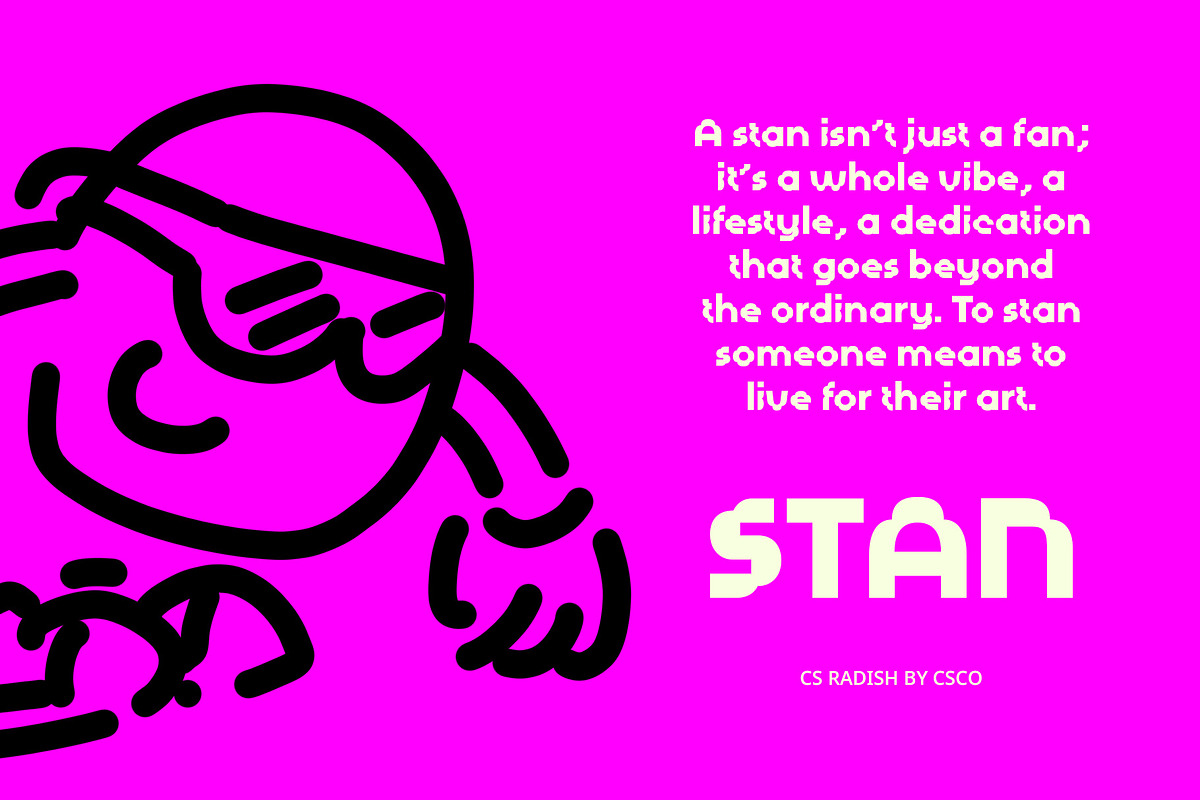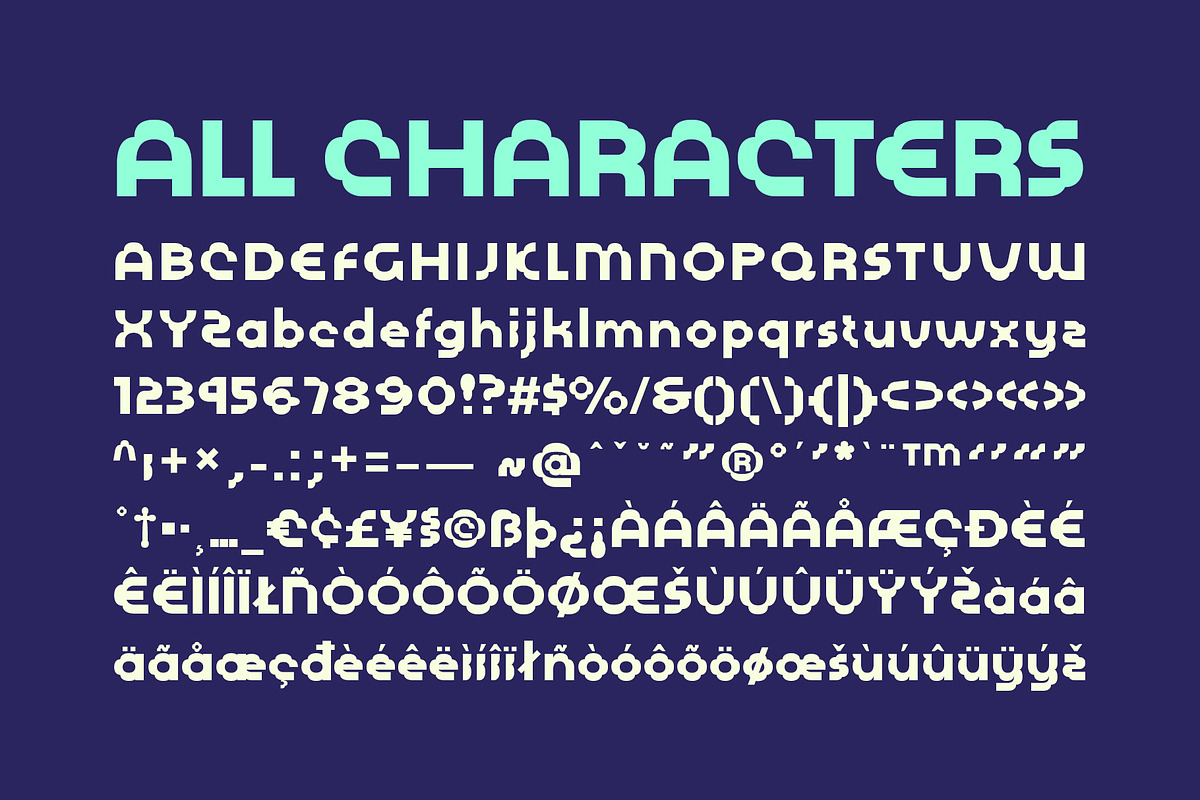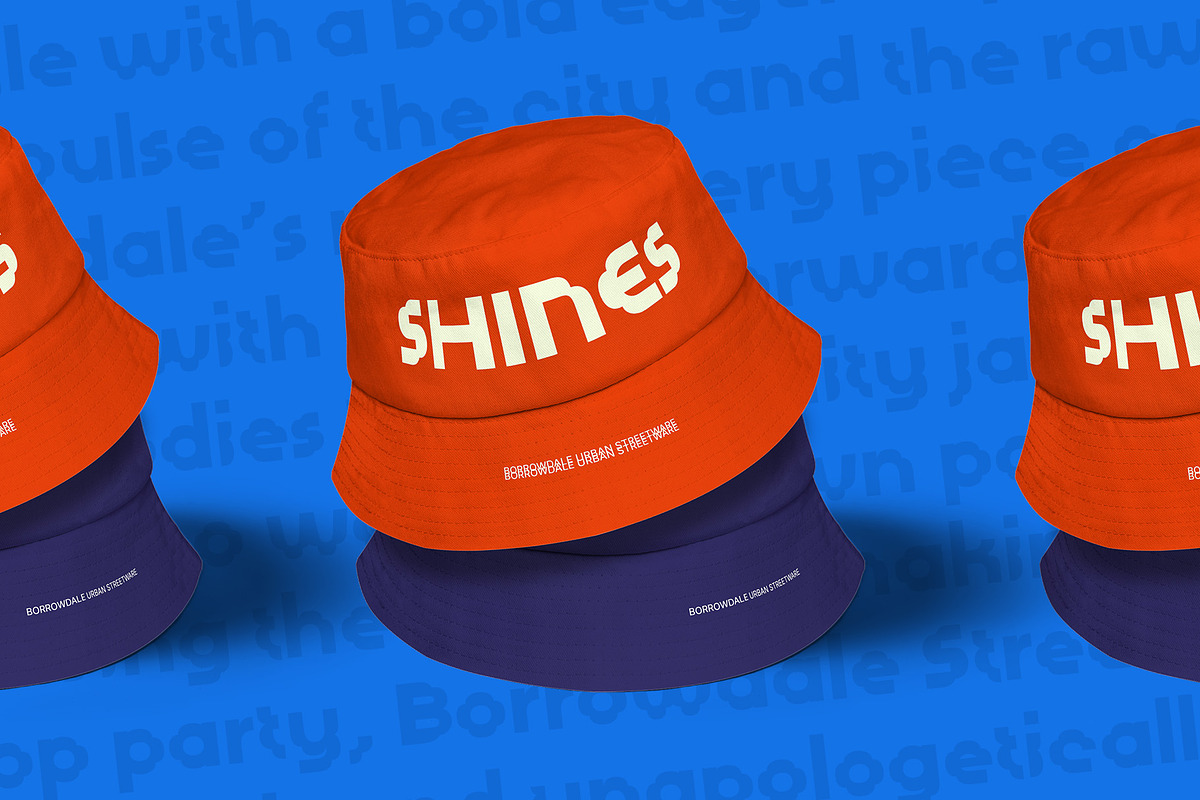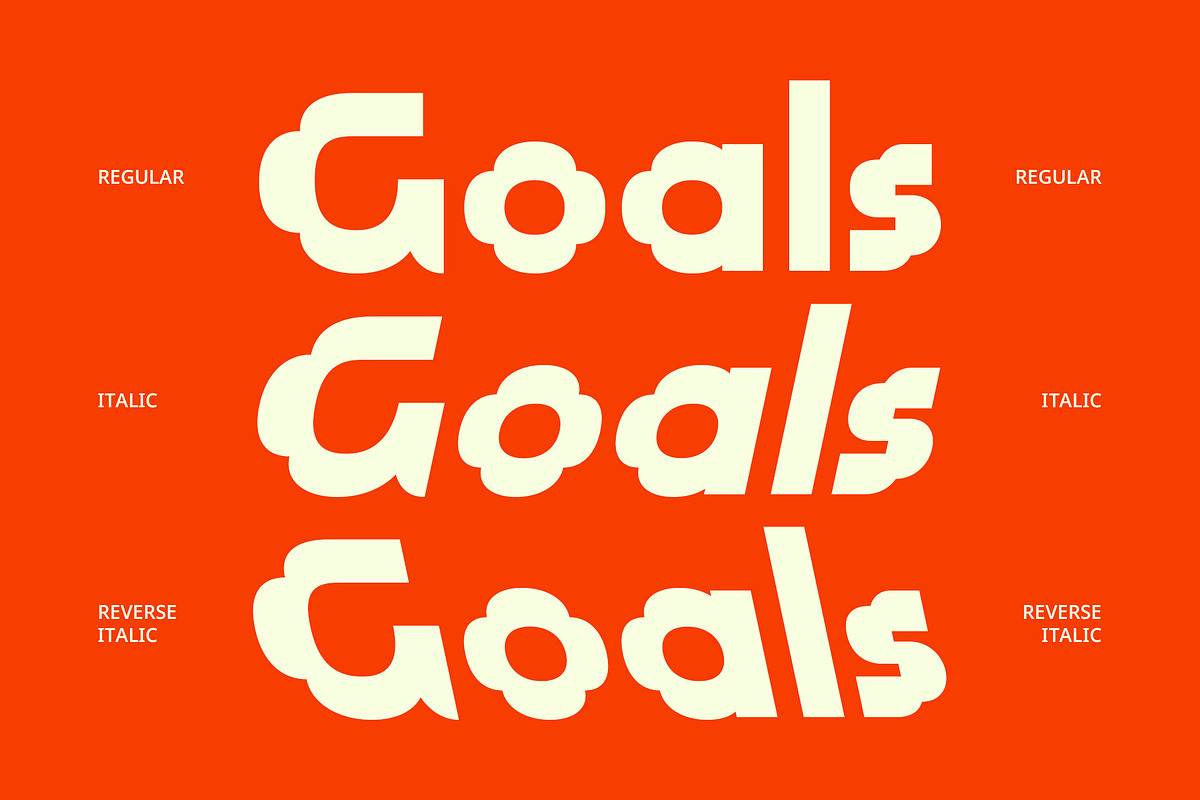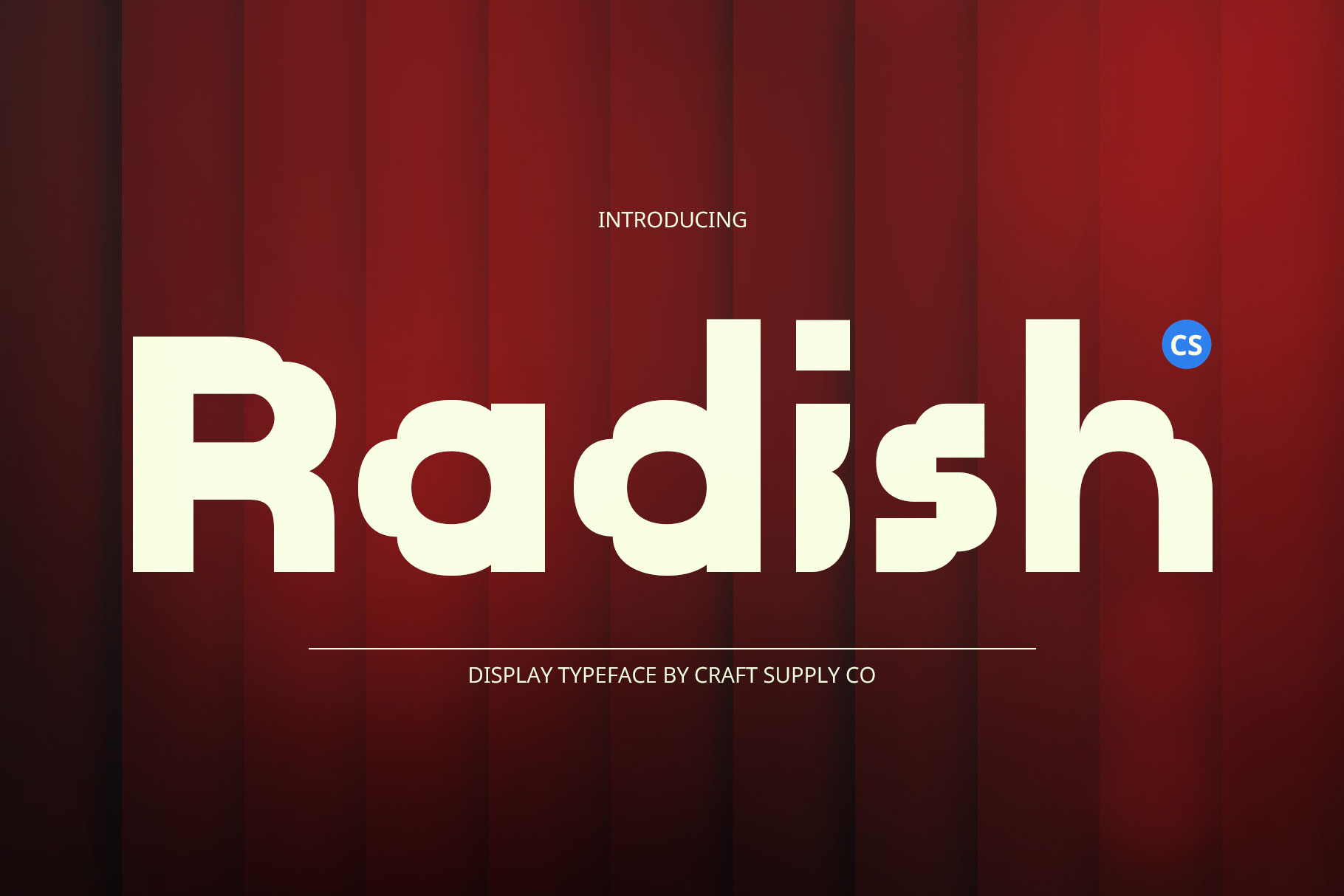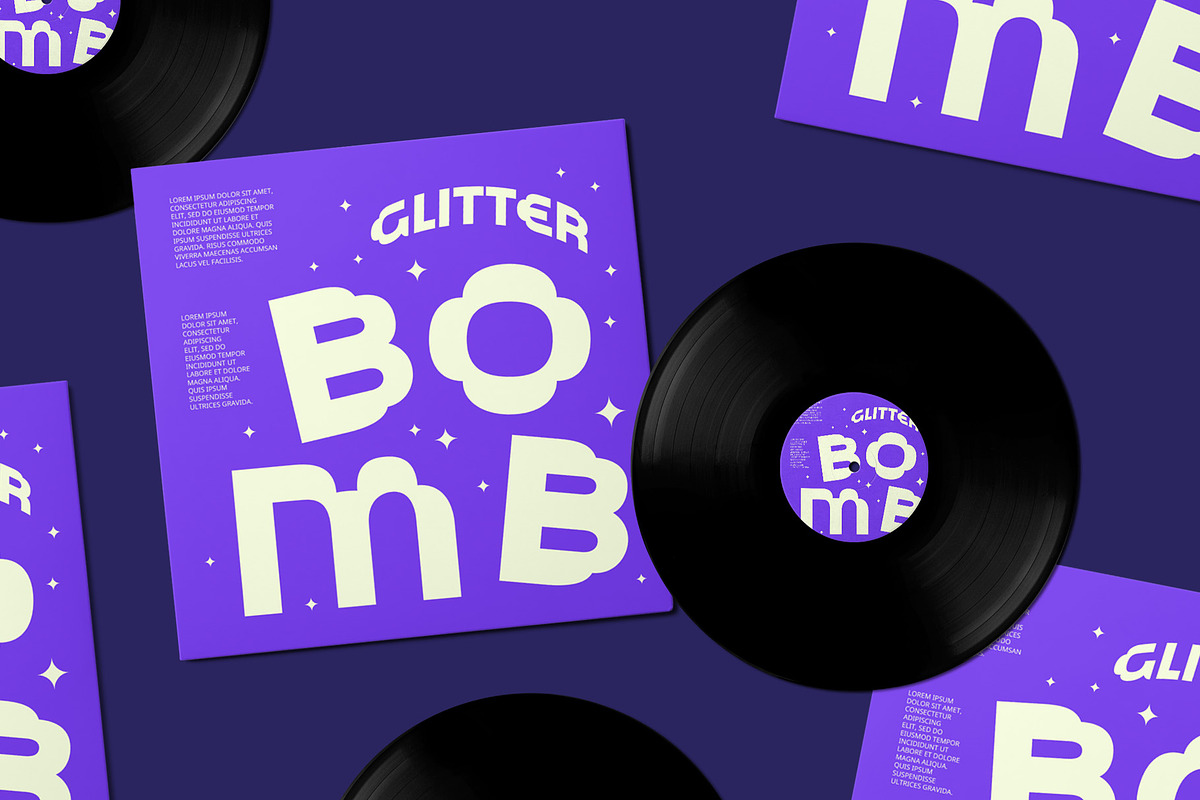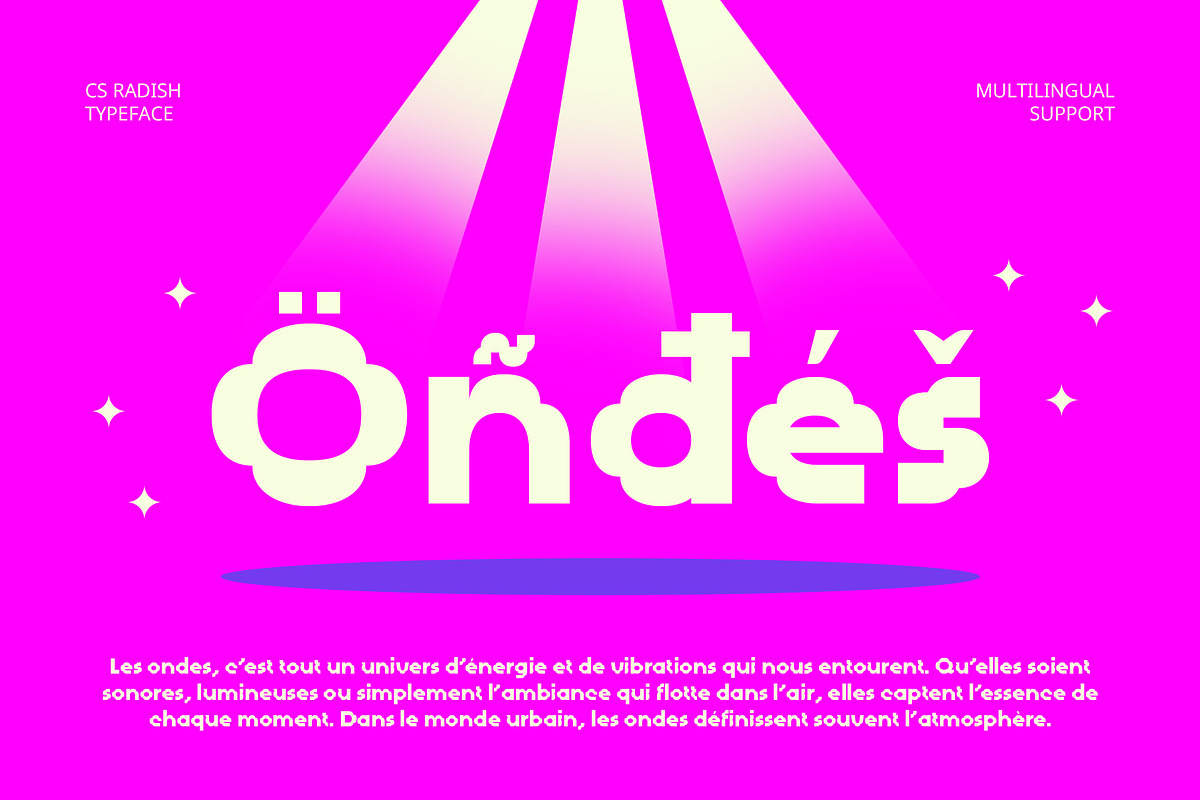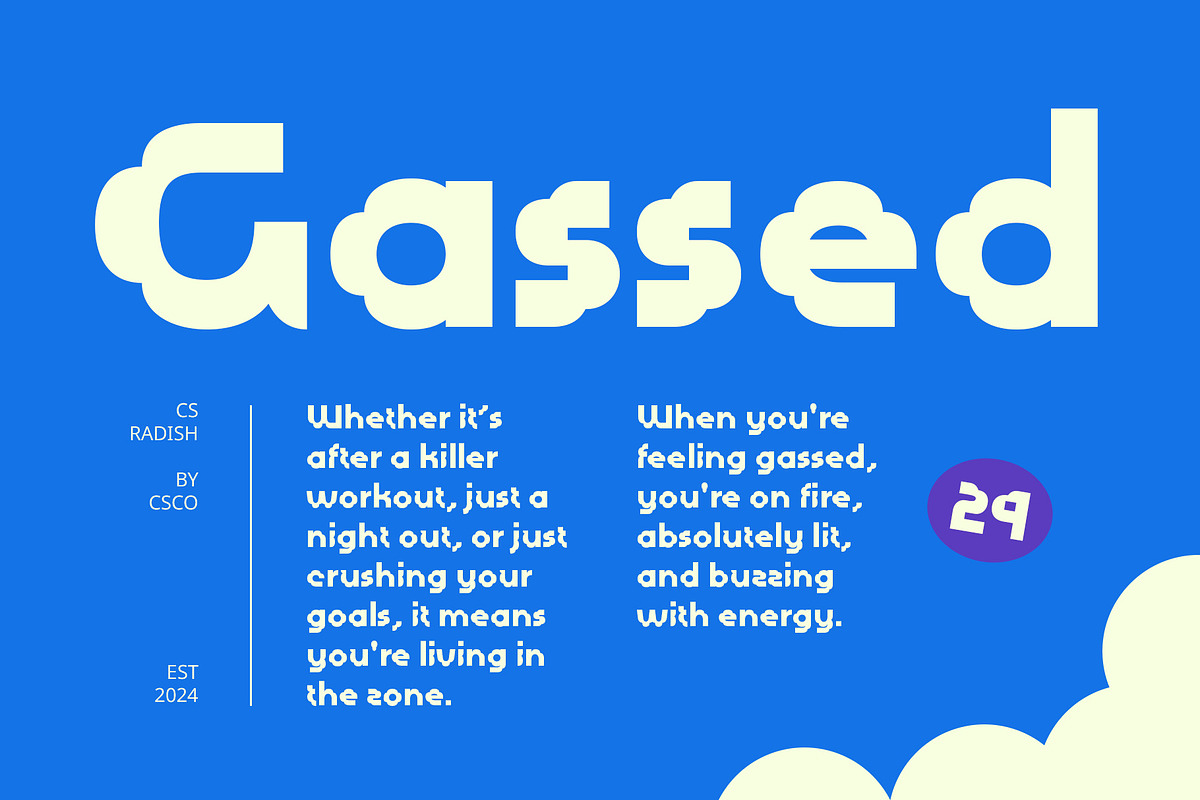
CS Radish – Decorative Font
CS Radish – Decorative Display Sans Serif Font
Cloud-Inspired Design with Playful Charm CS Radish is a bold, decorative display sans serif font that takes inspiration from the soft, flowing shapes of clouds. Its rounded, curving lines give the font a distinctive and endearing quality, creating a fun and energetic vibe. The design feels both organic and whimsical, offering a sense of lightness and playfulness that is perfect for vibrant and cheerful designs. The cloud-like characteristics lend themselves to designs that aim to evoke happiness, creativity, and a carefree spirit.
Perfect for Playful Branding and Children’s Designs This charming font is ideal for projects aimed at a young or youthful audience, with its playful curves and bubbly appearance. CS Radish shines in children’s posters, toy packaging, playful branding, and any design that needs to convey a sense of joy and imagination.
Energetic, Fun, and Full of Personality The design of CS Radish is anything but ordinary—its bold shapes and curvy, cloud-inspired details create a fun and dynamic atmosphere. The font’s energy is perfect for vibrant projects such as festival promotions, event marketing, and energetic social media campaigns. It’s a font that brings a sense of liveliness and excitement, drawing the viewer’s eye with its cheerful, almost cartoonish charm.
- CS Radish Regular
- CS Radish Italic
- CS Radish Reverse Italic